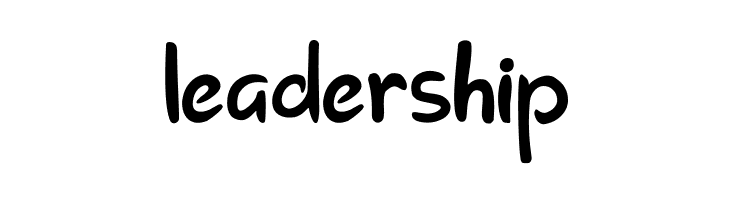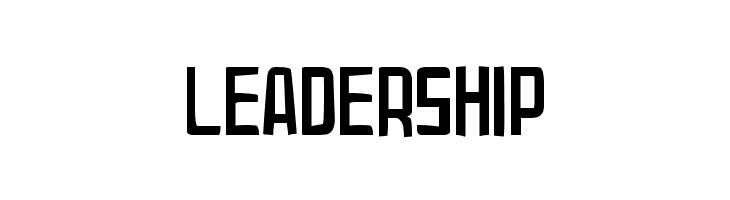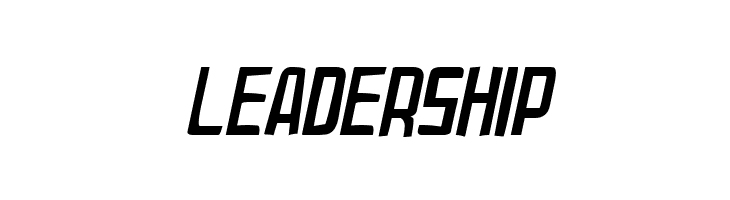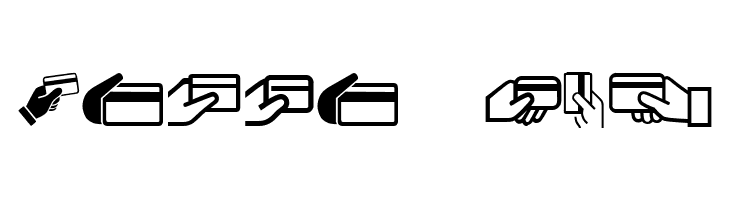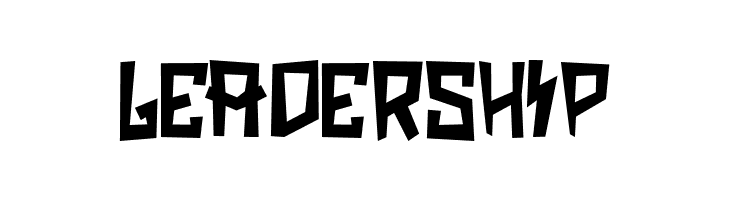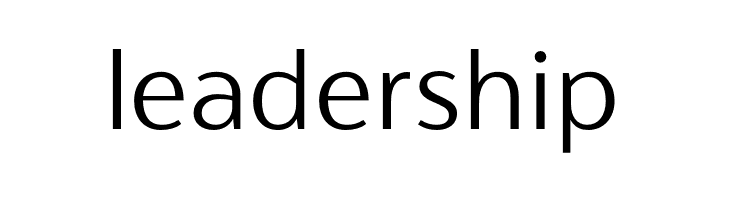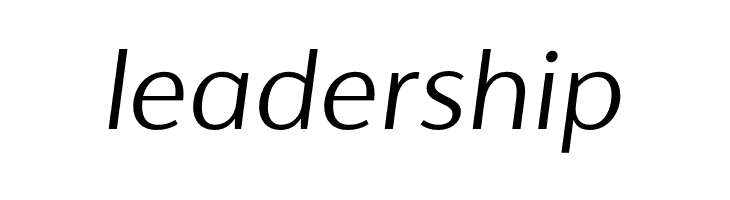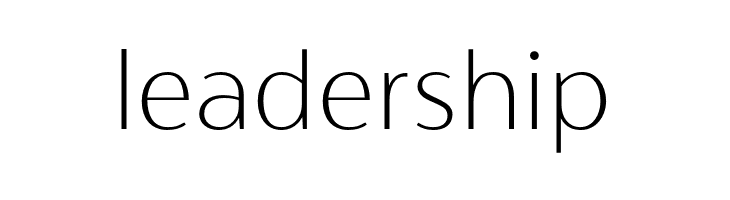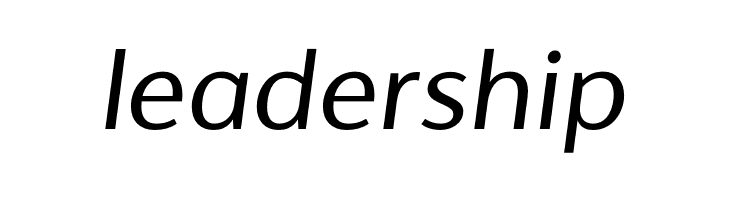
A modern, geometric sans-serif font with tall, narrow letters and consistent stroke widths.
A tall, narrow font with consistent stroke width and a modern, sleek style.
A bold, cracked texture font with a rugged, urban style.
A bold, brush-style font with dynamic slant and energetic strokes.
A bold, dynamic script font with a brush-like, hand-drawn appearance.
A playful, cursive script font with elegant, flowing strokes.
A bold and edgy skull and crossbones motif design with intricate details.
A bold, vintage-style font with dynamic stroke contrast and strong visual impact.
A playful, crayon-like font with a textured, hand-drawn appearance.
A dynamic, handwritten-style font with a textured, casual appearance.
A modern, elegant script font with flowing, cursive letters and decorative swashes.
A lively and dynamic handwritten font with fluid, connected strokes.
An elegant, decorative script font with flowing, cursive letterforms.
A bold, playful handwritten font with rounded, irregular letterforms.
A pictographic font of hands and credit cards in transactional gestures.
A bold, quirky font with a spooky, playful aesthetic and irregular shapes.
A whimsical, hand-drawn font with a quirky, magical style.
A bold, playful script font with dynamic curves and high contrast.
A lively and flowing script font with smooth, cursive strokes and elegant loops.
A modern sans-serif font with clean lines and excellent readability.
A modern sans-serif font with clean lines and balanced proportions.
A bold, geometric typeface with strong, uniform strokes.
A clean, modern sans-serif font with an extra light weight and minimalist design.
A delicate and elegant handwritten font with flowing, interconnected letterforms.
A bold, geometric font with a modern and assertive style.
A bold, italic font with a modern, dynamic style and consistent stroke thickness.
A bold, angular font with a modern, edgy style.
A cursive, handwritten font with elegant, flowing curves and a bold presence.
A playful, handwritten font with irregular strokes and a casual style.